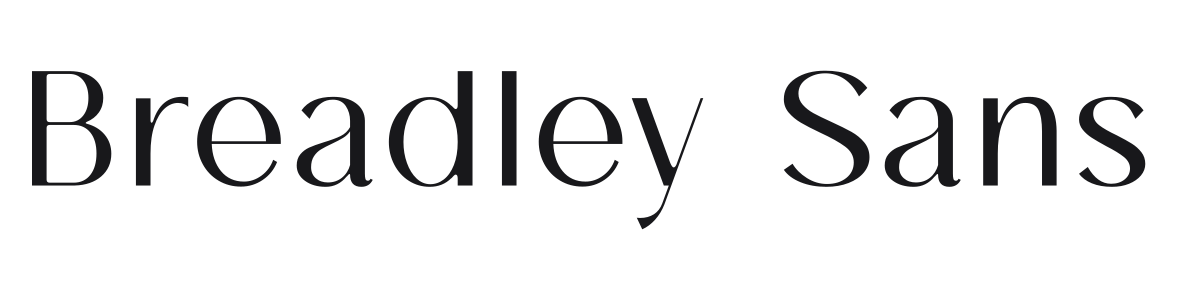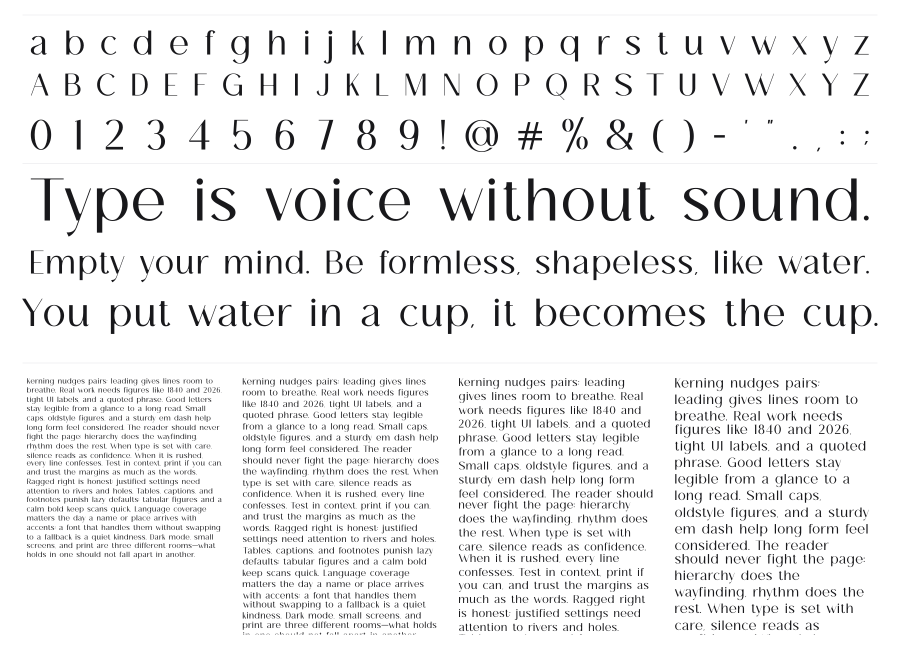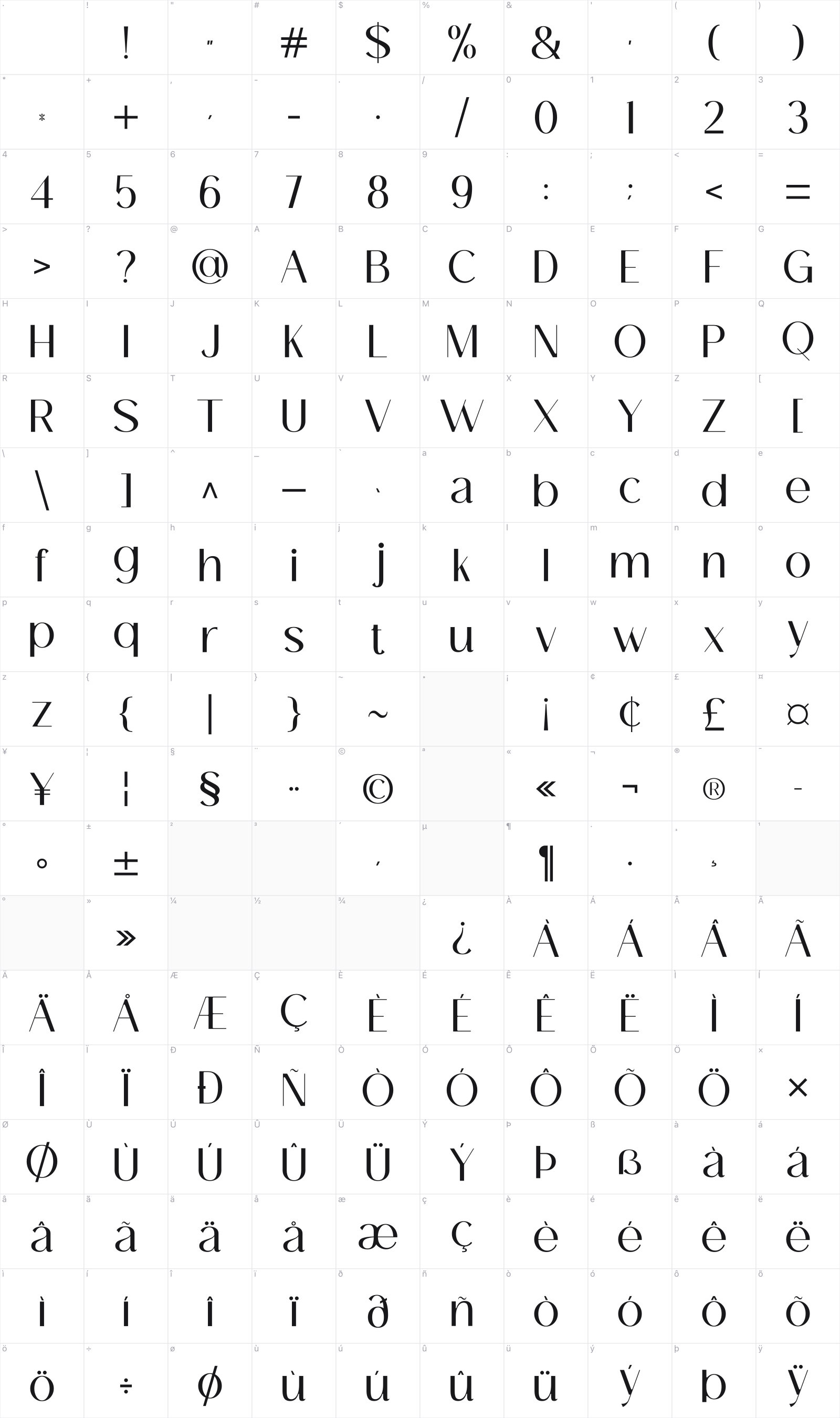
Breadley Sans
Breadley Sans is a high-contrast sans-serif that borrows the dramatic thick-thin stroke variation of classical Didone type but strips away the serifs for a contemporary result. The hairline strokes feel almost impossibly thin against the full-weight stems, giving it a delicate, couture-adjacent quality. At large sizes it reads as quietly luxurious, the kind of font that works naturally in fashion editorial and upscale brand identity.